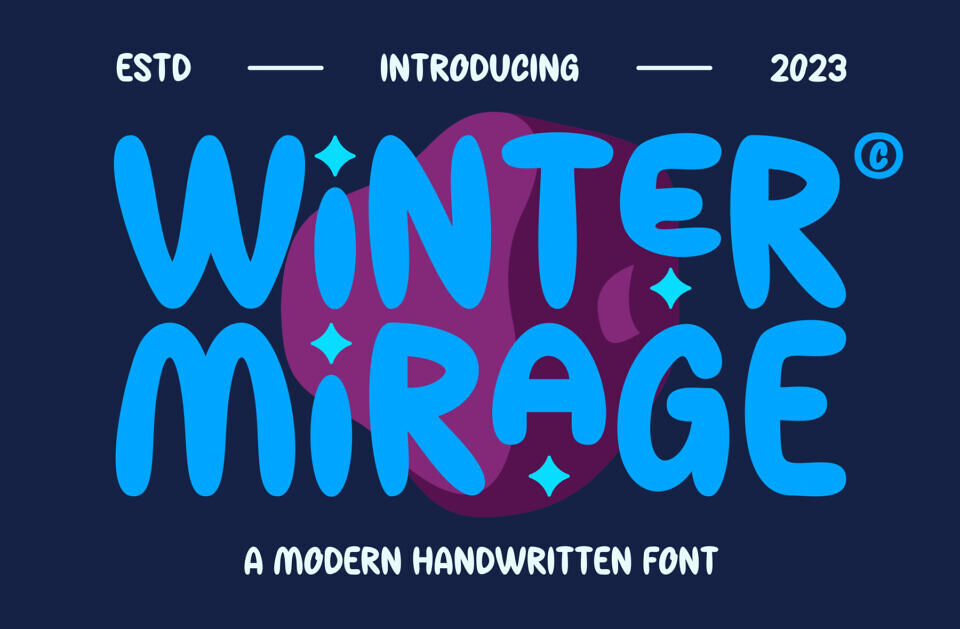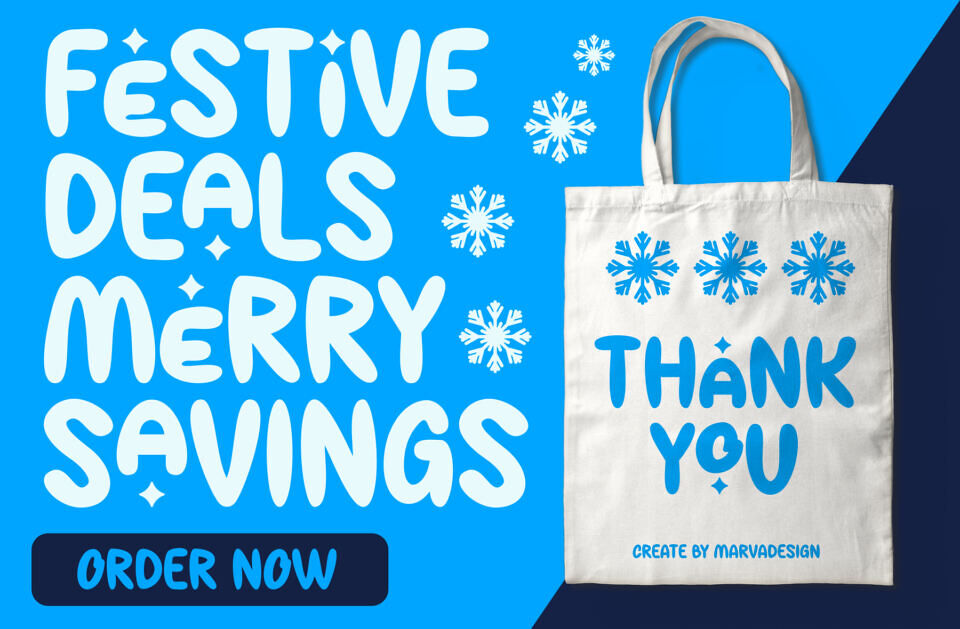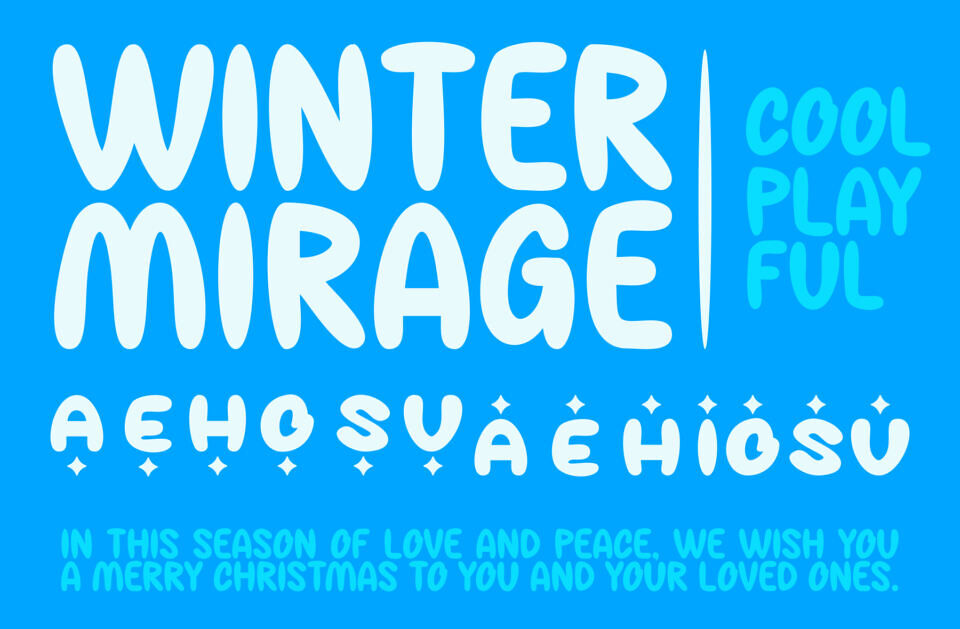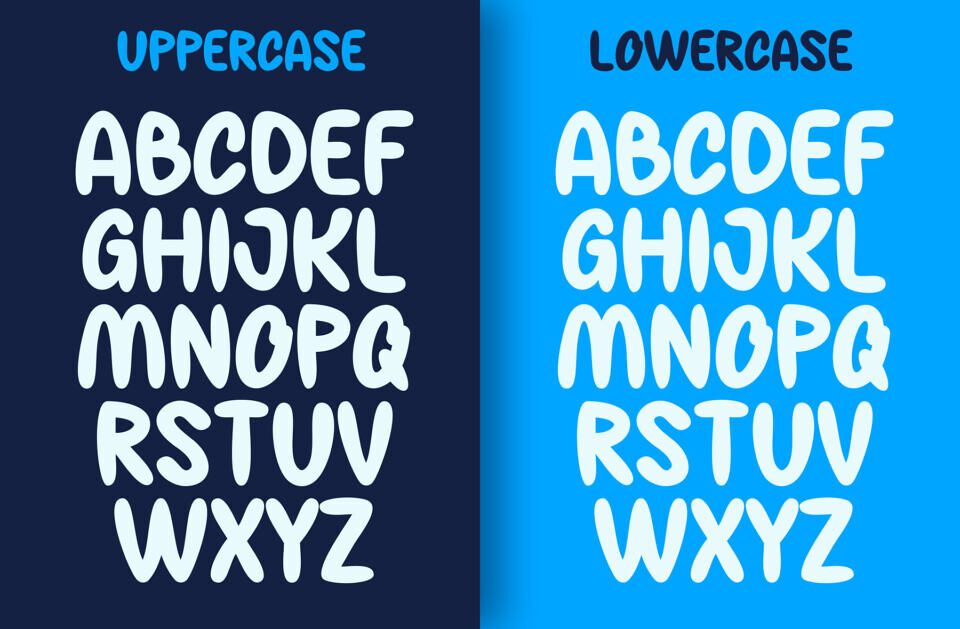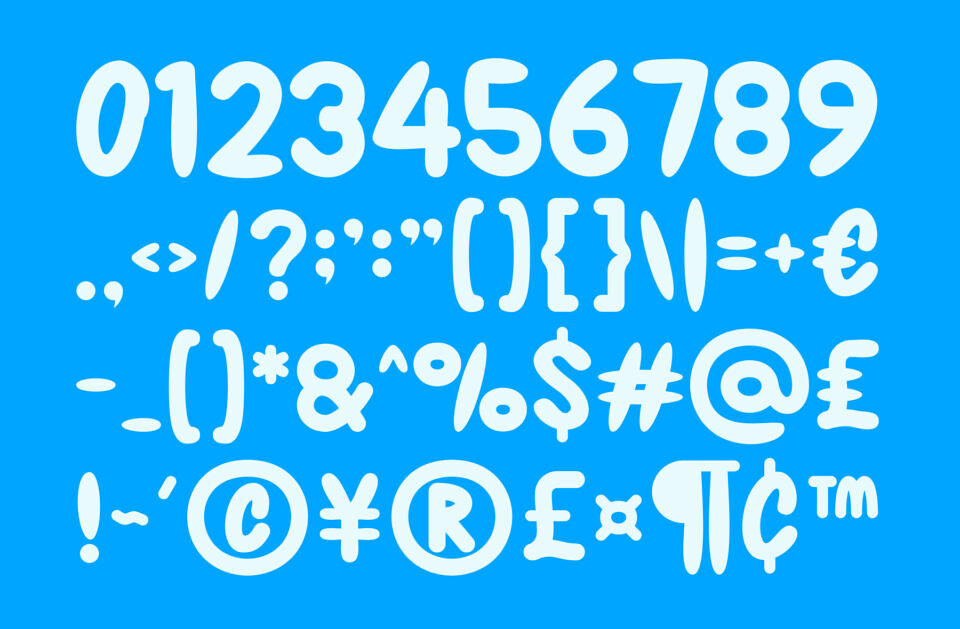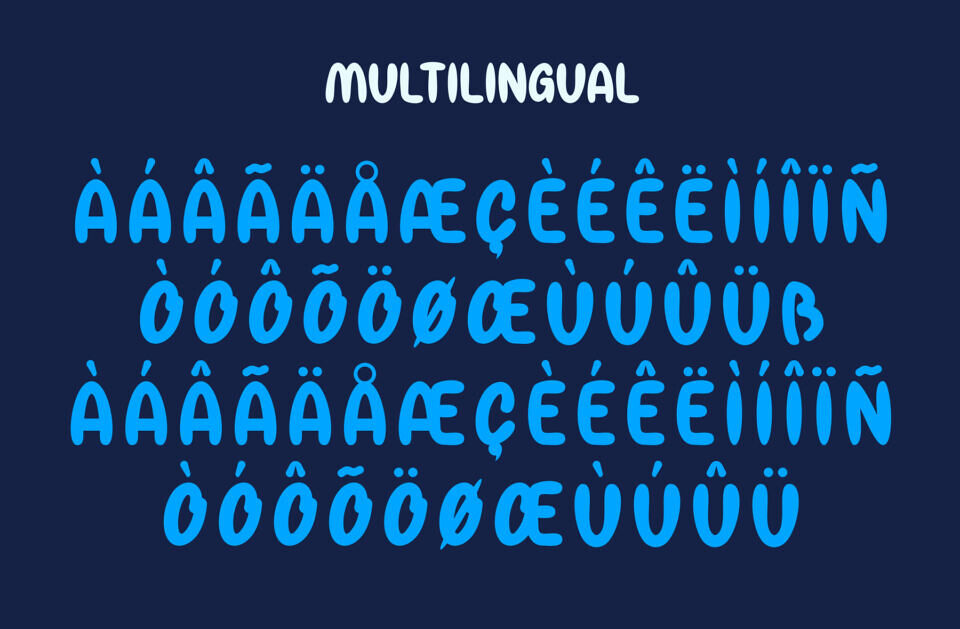
Winter Mirage is a handwriting font designed and published by Marvadesign. It’s a modern bold and authentic display font suitable for any branding project like logo, Template Design, Product and many more. outstanding in a wide range of contexts.